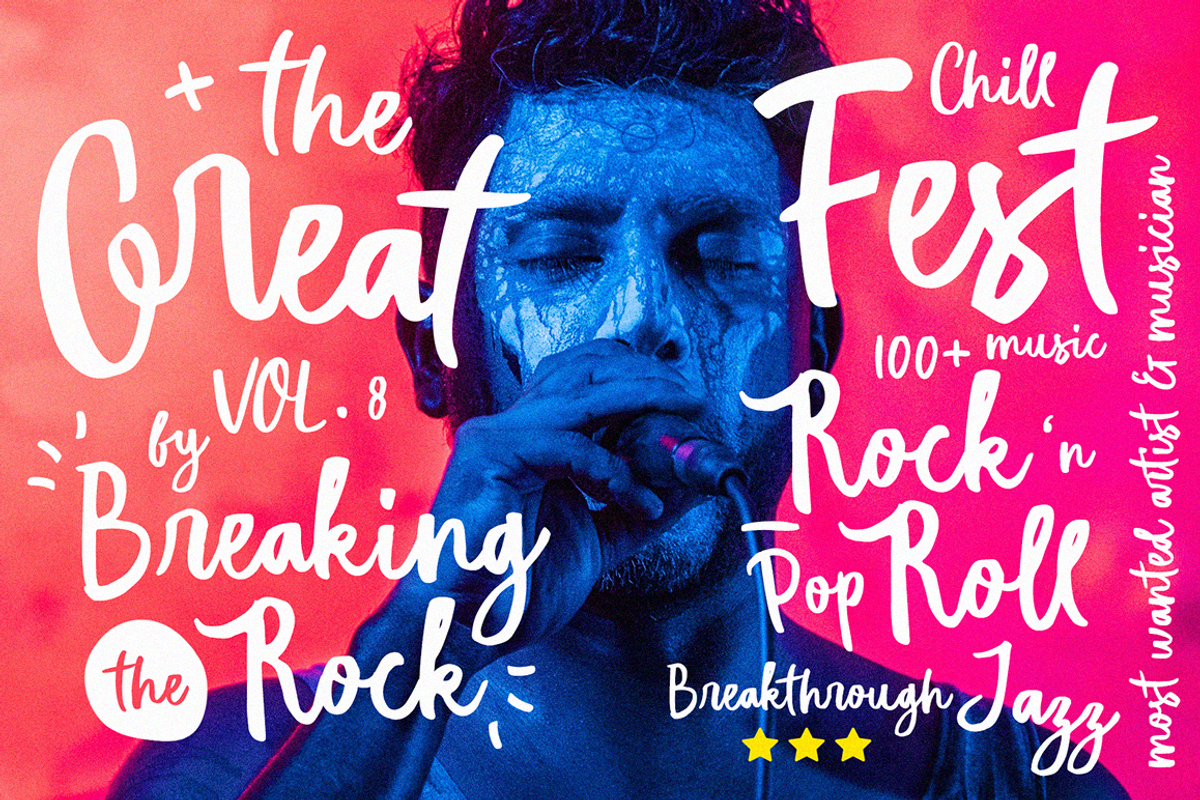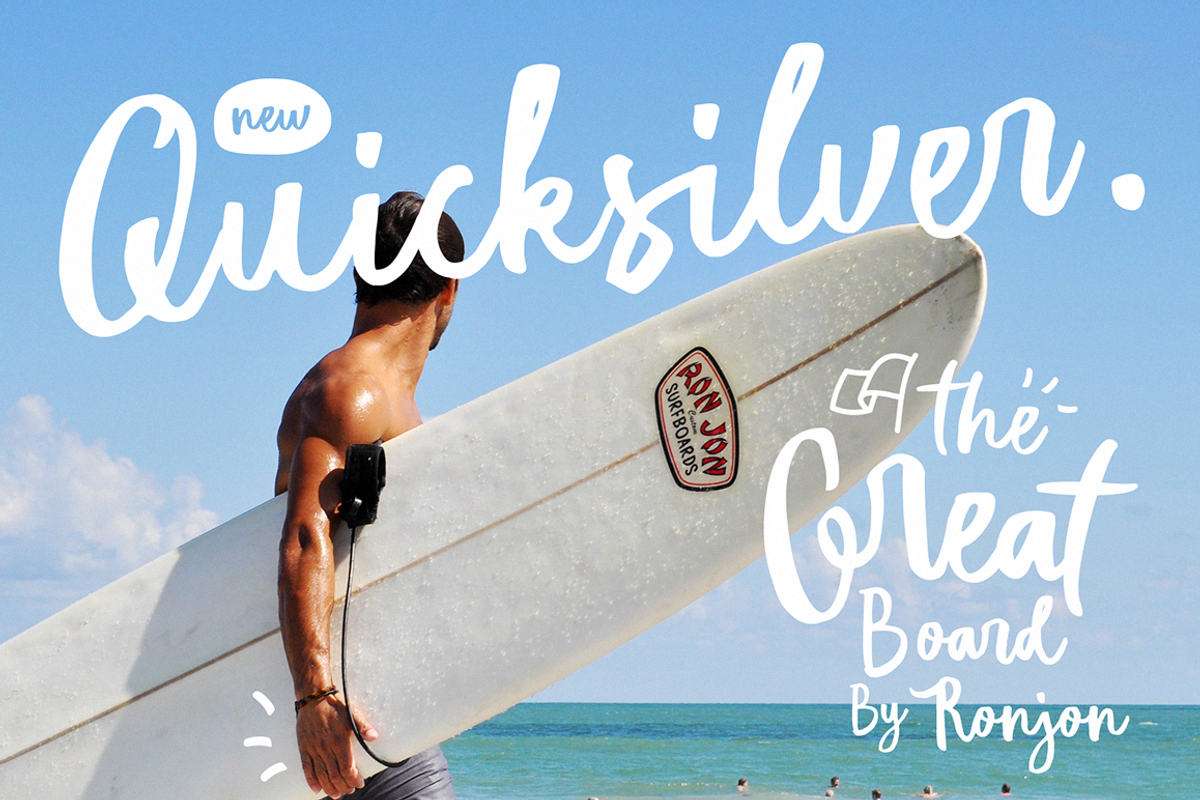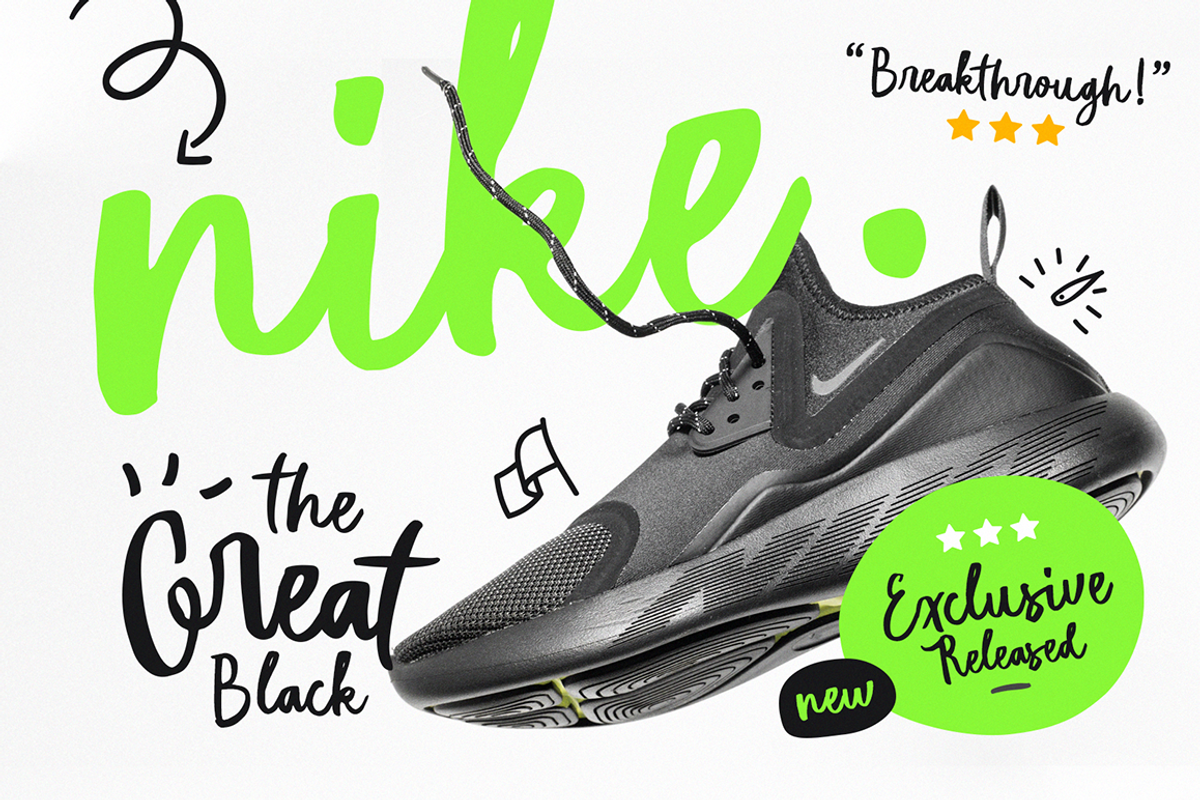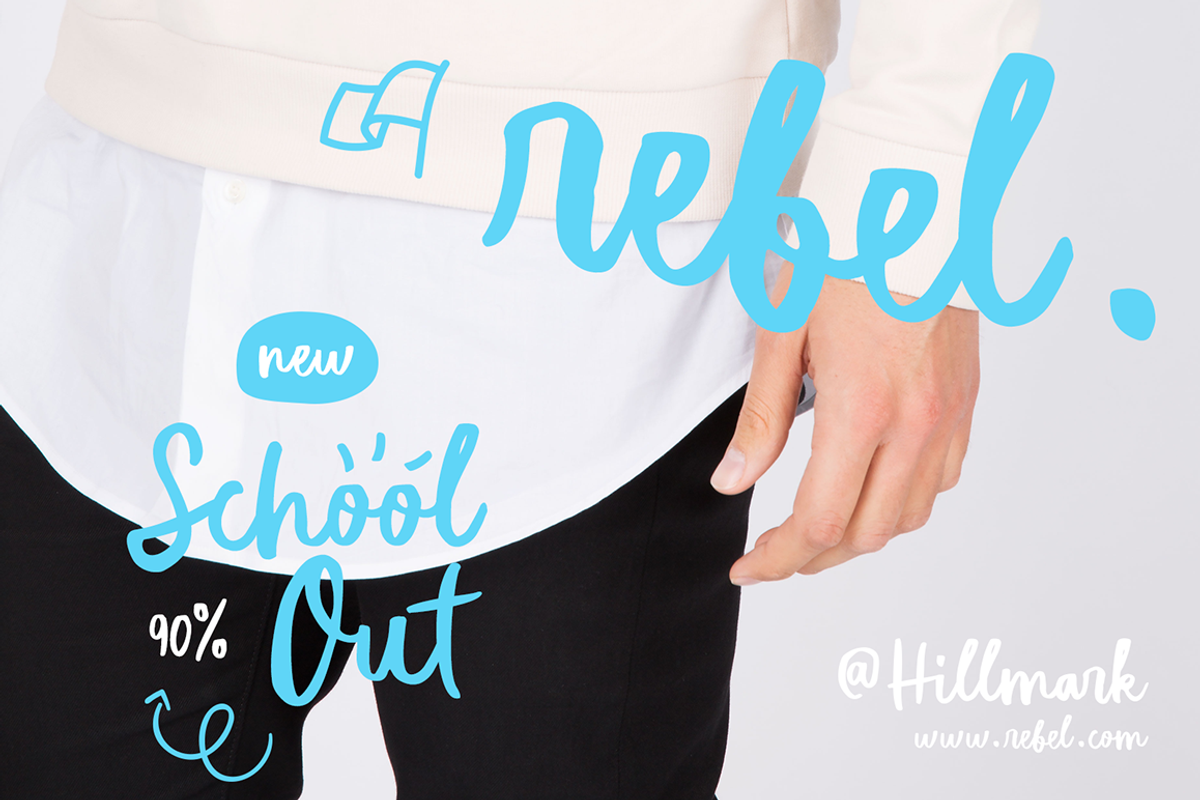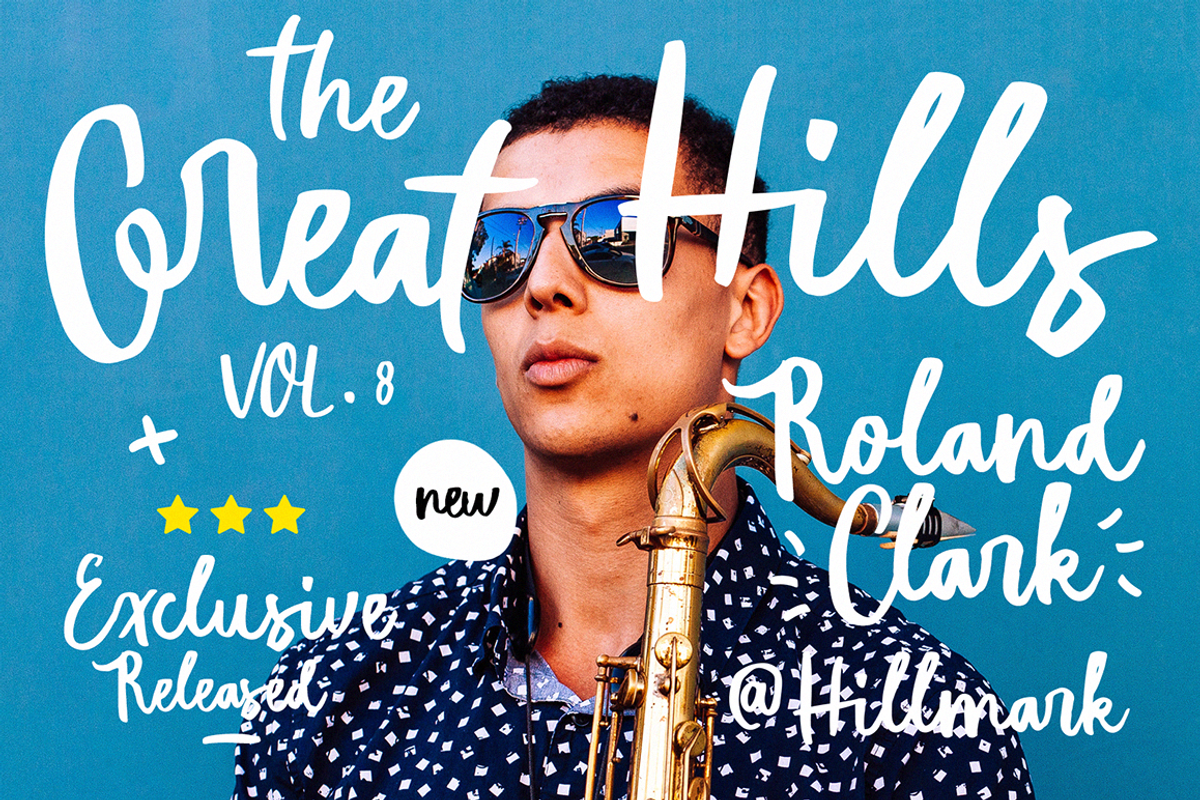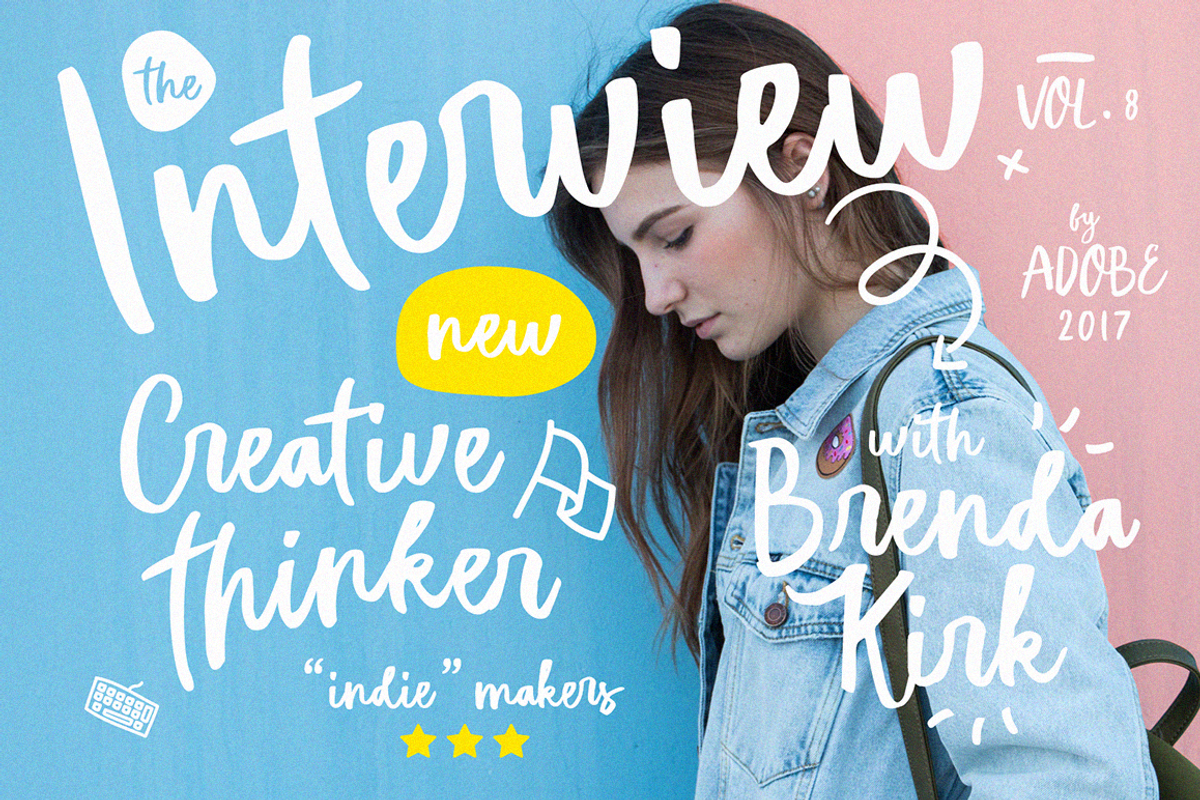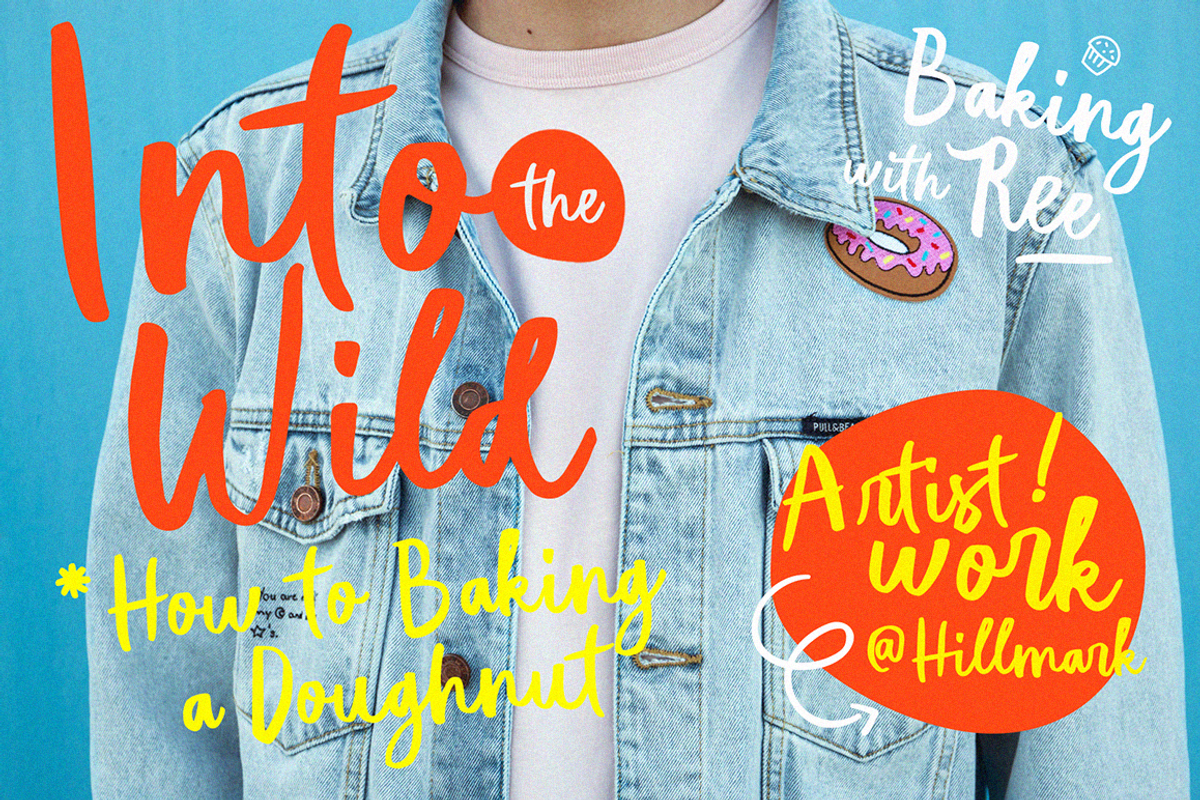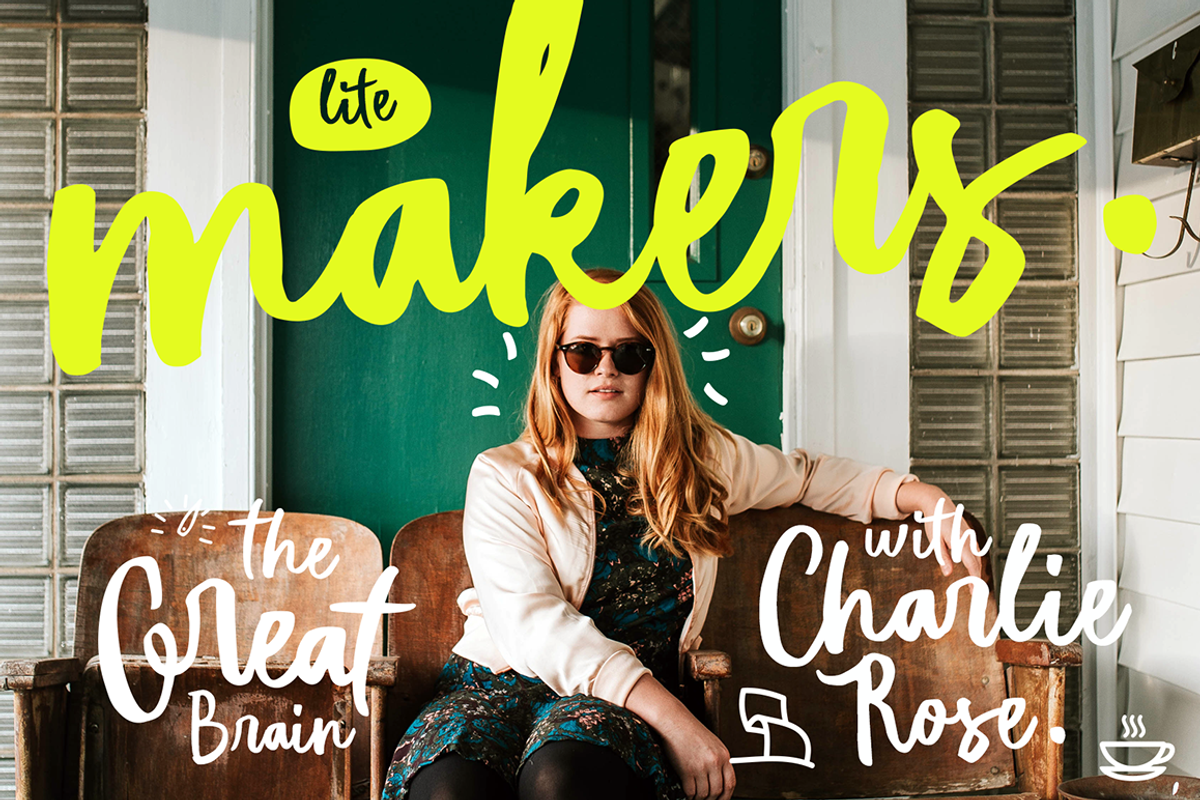
Hillmark Typeface
Meet Hillmark, a brand new typeface from us. Designed to fulfil your trend-catching things with the edgy style and undeniable artsy look. Perfectly fit for your fashion branding stuff, magazine, handwriting logo, inspirational quote poster, oh well you name it.
Why Hillmark Typeface is worth a look
Hillmark Typeface by RKS-Studio fits naturally into Branding, posters, packaging, typography.